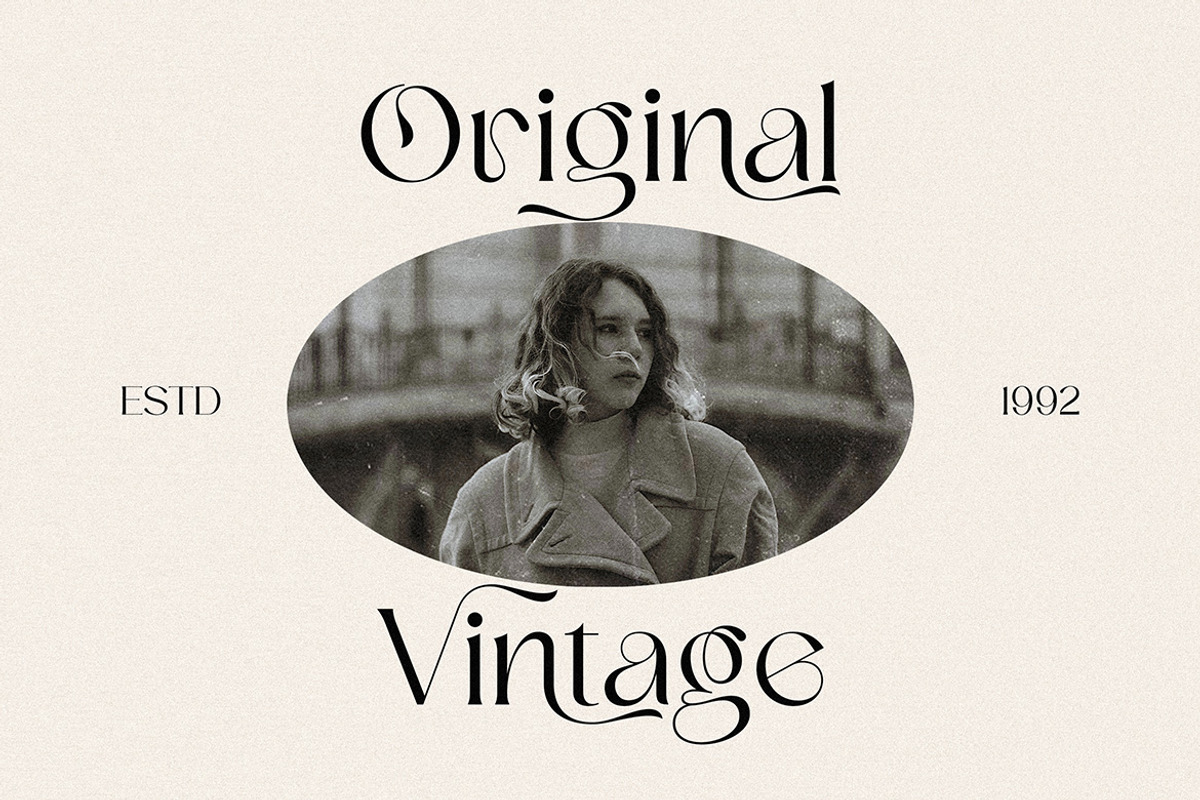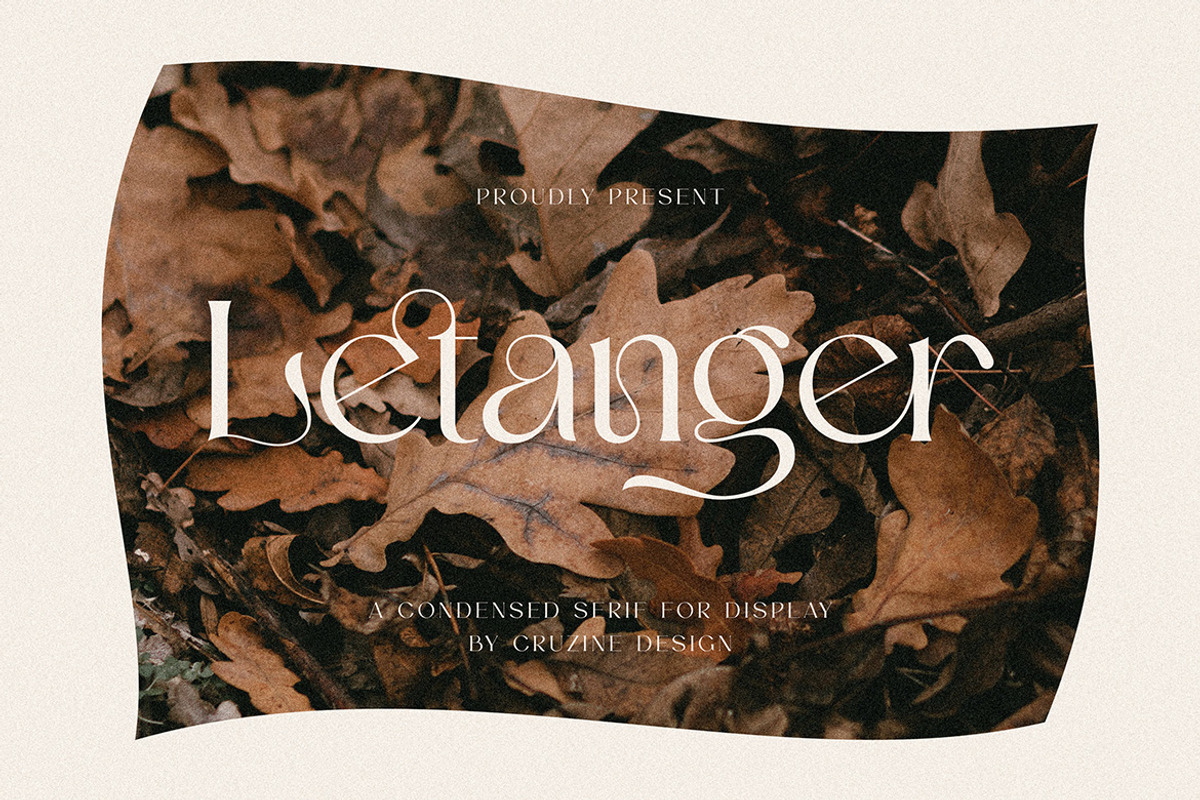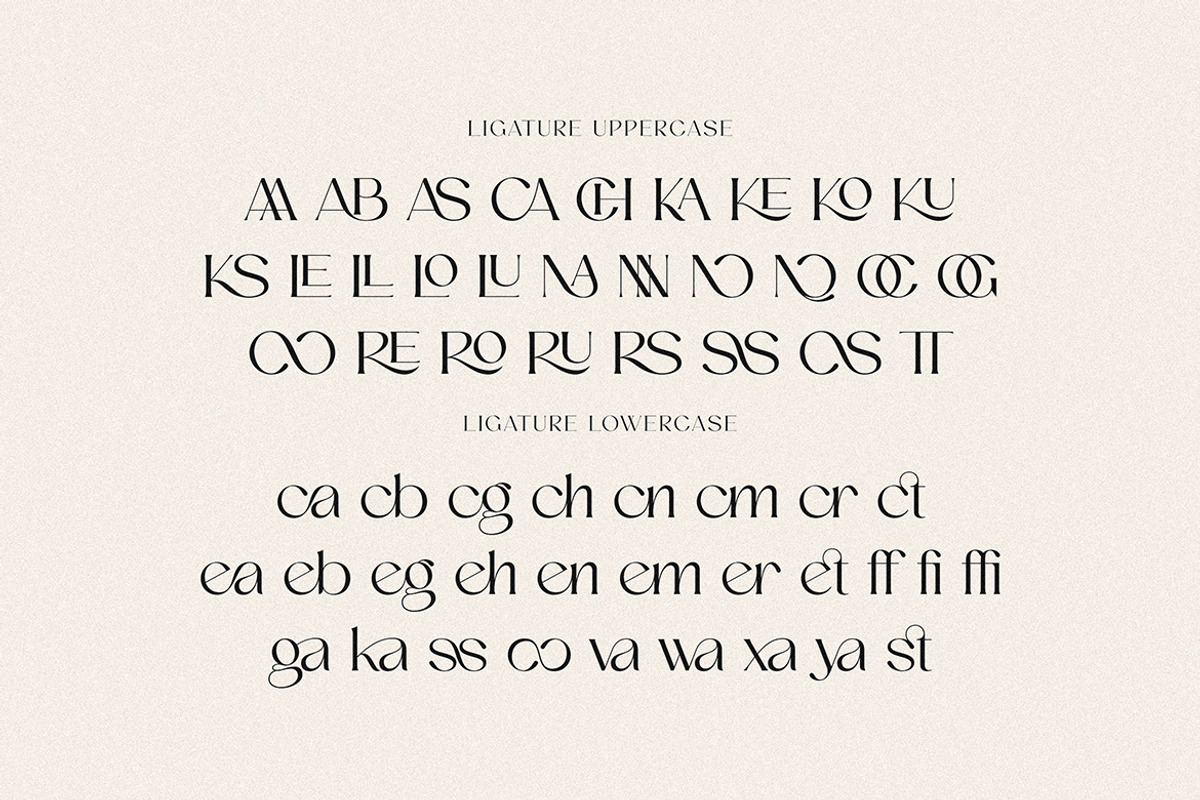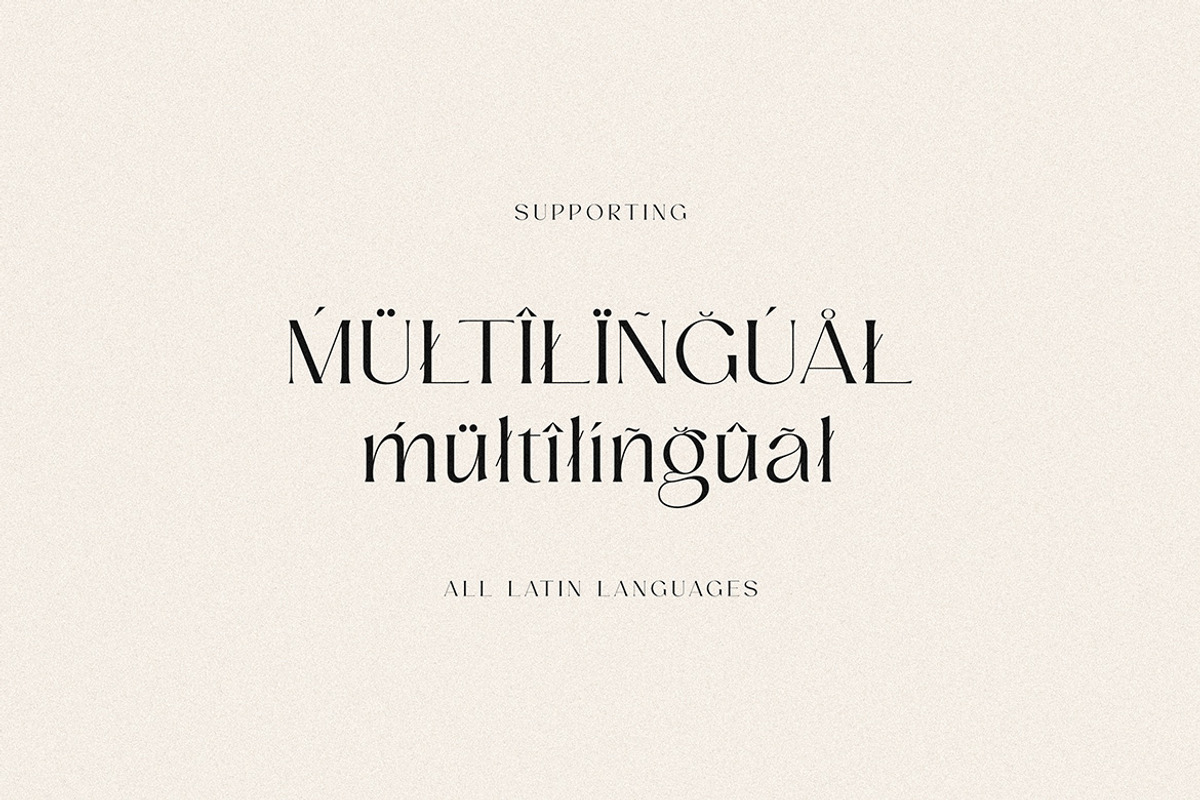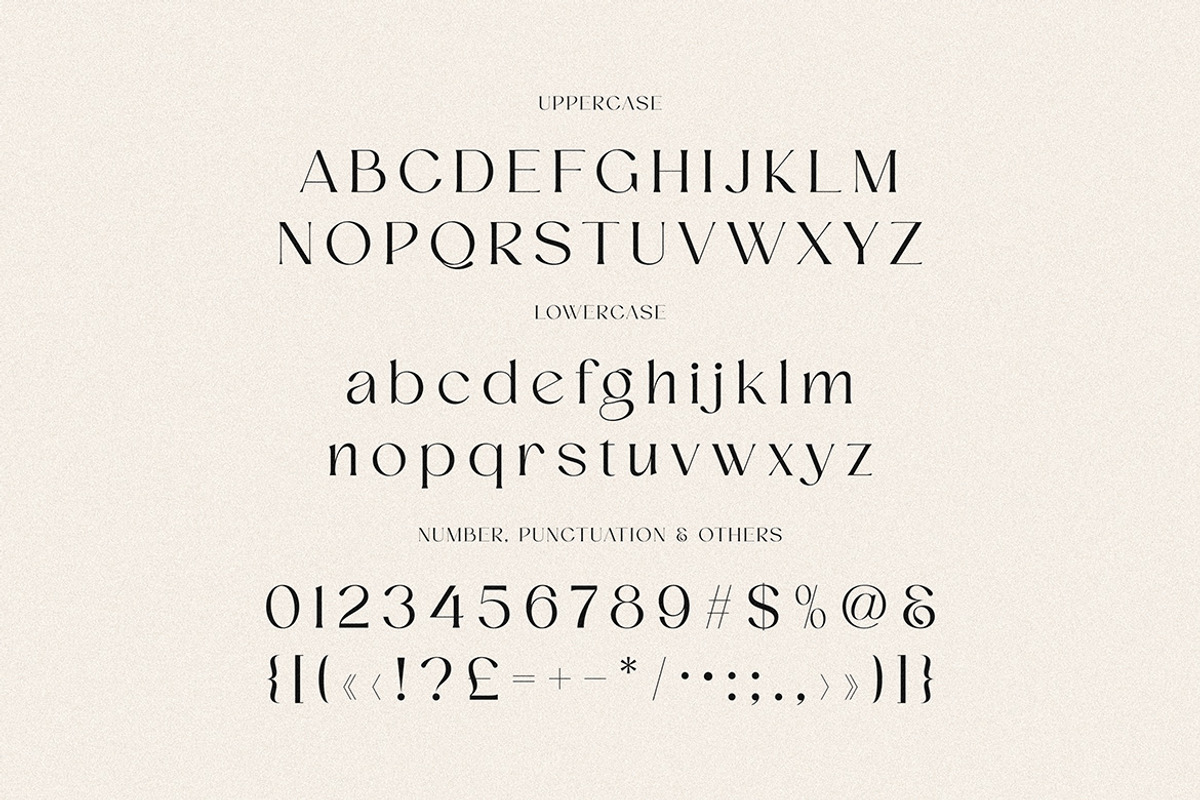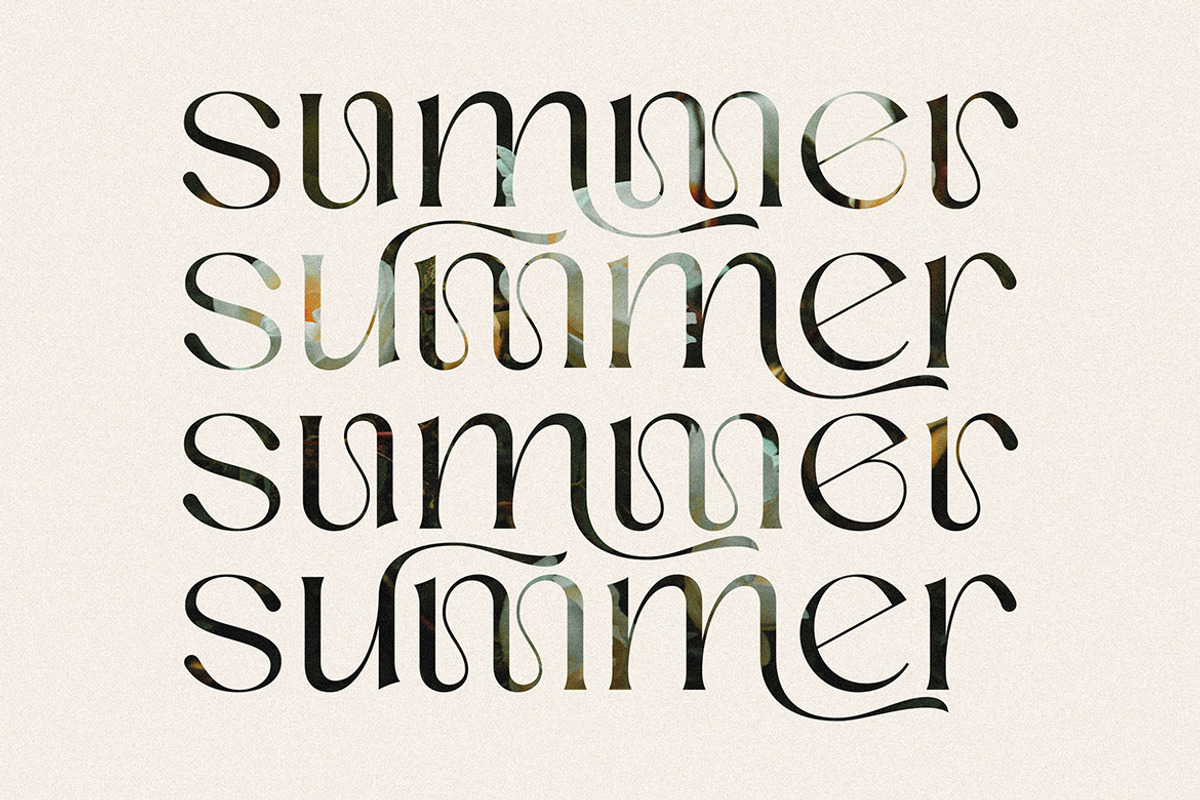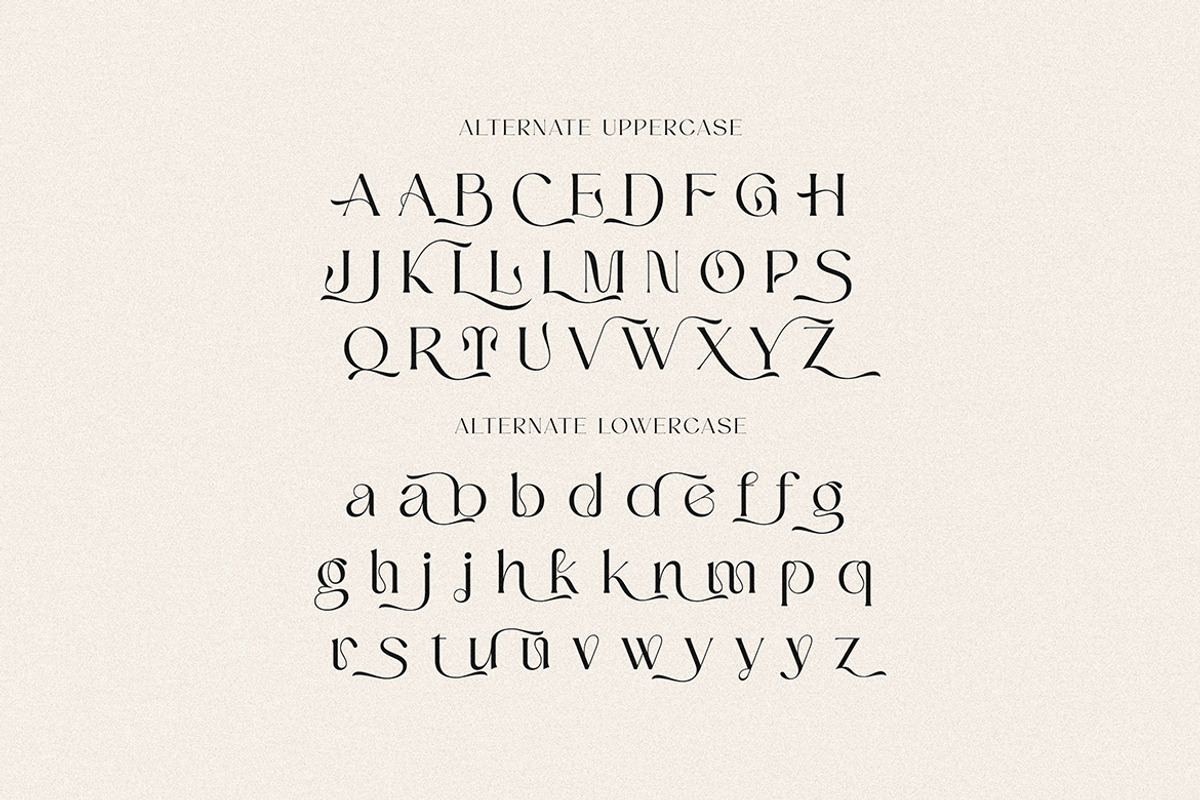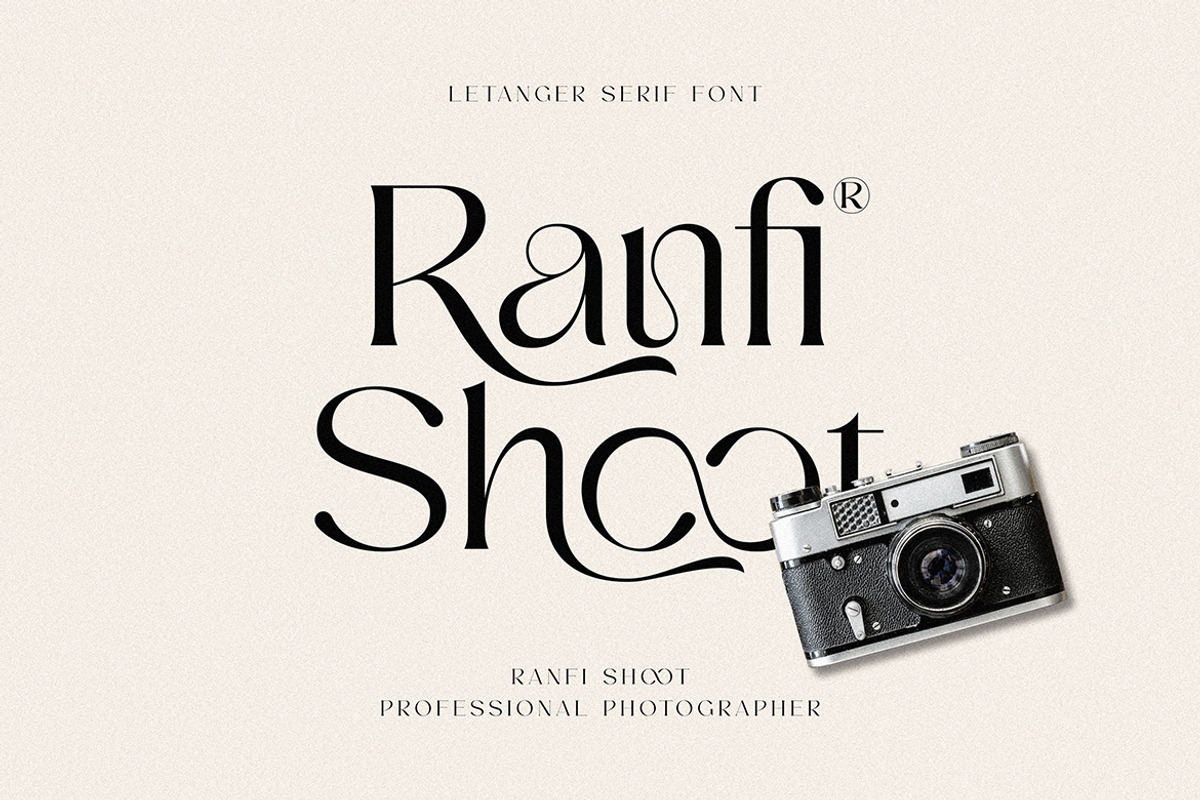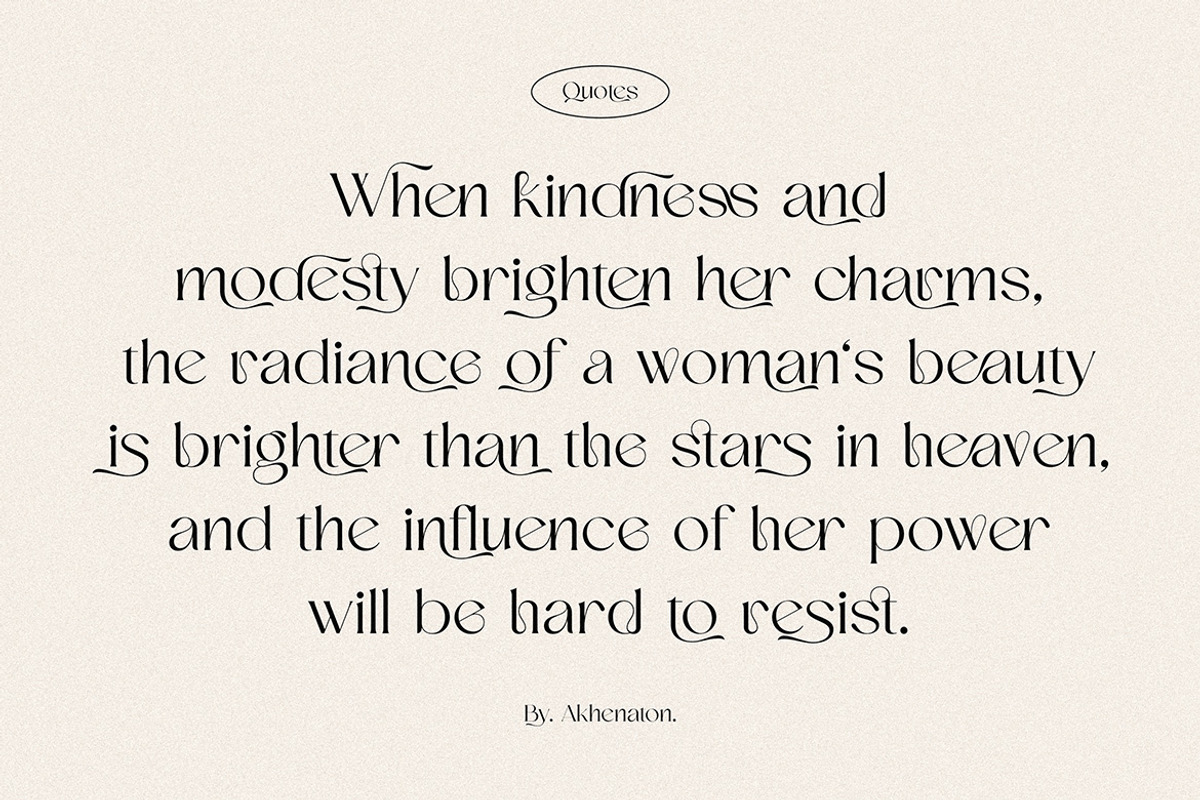
Letanger Elegant Deco Serif
Trendy, elegant, modern & decorative style serif font for your new modern projects. Luxury, artistic, fancy and fashion style on Letanger font will be great for any branding project. Lot of alternates and ligatures will help you to create unique and original logo design or website header! Enjoy :)
- Alternate characters
- Lot of ligatures
- Great for modern branding projects!